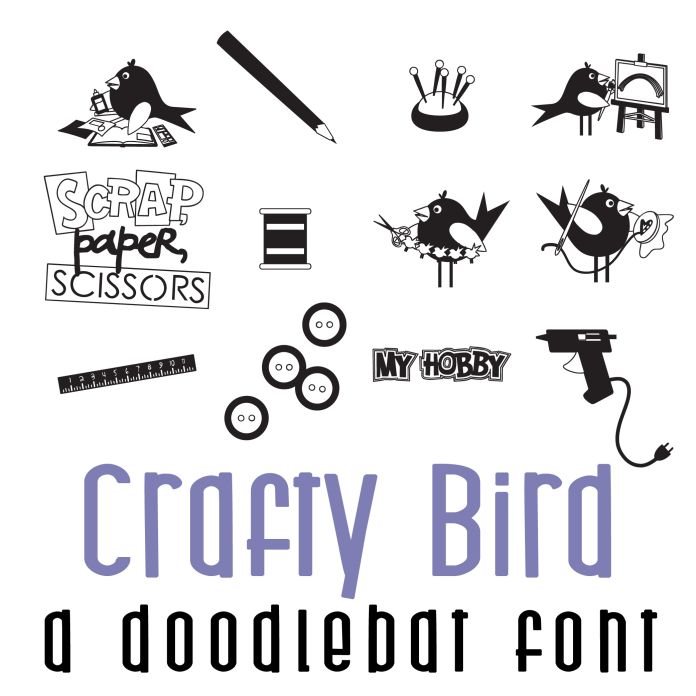
This fun doodlebat font features 26 crafty bird perfecting their favorite craft, perfect for cards, crafts, gifts, decor, scrapbook pages, planner stickers, and more!